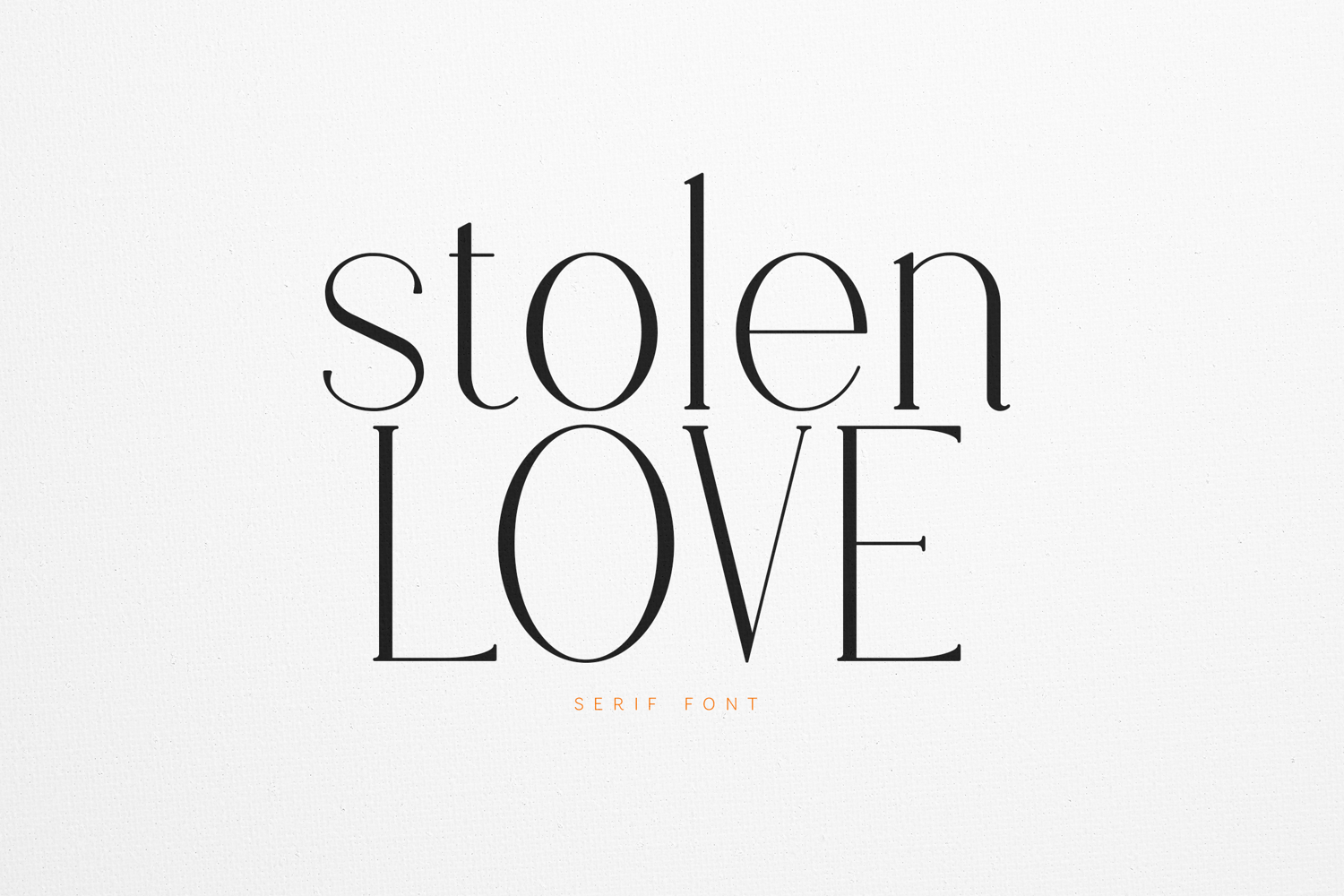
Stolen Love Elegant Modern Serif Font
Stolen Love is a refined modern serif font designed with elegance, contrast, and emotional softness in mind. Its delicate high-contrast strokes and graceful curves create a luxurious and timeless aesthetic, perfect for sophisticated branding and editorial design.
The font blends classic serif structure with contemporary minimal details, making it ideal for fashion campaigns, luxury packaging, magazine headlines, wedding invitations, and premium logo design.
Stolen Love includes a full uppercase and lowercase character set, multilingual support, numerals, punctuation, and special symbols — giving you complete flexibility for high-end design projects.
Whether you’re creating bold statement headlines or soft romantic typography, Stolen Love delivers elegance with personality.